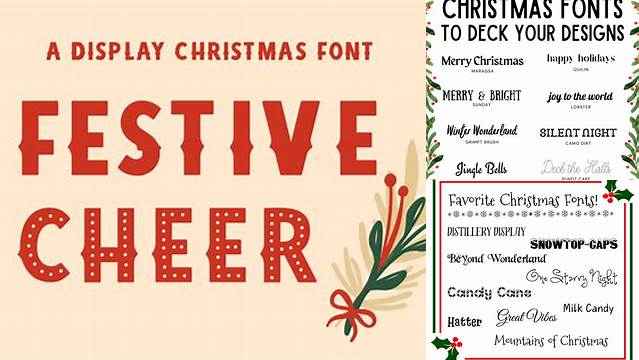
Let's get this holiday party started, fonts-style! Are you ready to sprinkle some Christmas magic on your messages, social media posts, or festive designs? You've come to the right place! This guide is your ultimate cheat sheet for all things Christmas fonts, making it super easy to copy and paste your way to holiday cheer. Forget struggling with complicated design software – we're keeping it simple, fun, and totally festive. We'll dive deep into a sleigh-full of font styles, from elegant scripts that whisper of snowy evenings to playful fonts that shout "Santa's coming!". So, grab your cocoa, put on some carols, and let's transform your text into a winter wonderland. We're going to cover everything you need to know, from where to find these amazing fonts to how to use them to their full potential. Get ready to make your words sparkle and shine with the spirit of Christmas!
H2: What Are Christmas Fonts?
Christmas fonts, guys, are basically the secret ingredient to adding that extra oomph to anything holiday-related. They're not just your regular, run-of-the-mill letters; they're designed to evoke the warmth, joy, and magic of the Christmas season. Think about it – a simple message written in a playful, snow-dusted font instantly feels more festive, right? These fonts come in all sorts of styles, from elegant scripts that remind you of handwritten Christmas cards to bold, whimsical fonts that practically jingle bells. They often incorporate design elements like snowflakes, ornaments, or even little Santa hats perched on top of the letters. The key is to choose a font that matches the mood you're trying to create. A formal invitation might call for a sophisticated script, while a fun, casual social media post could rock a quirky, playful font. So, whether you're crafting invitations, designing holiday cards, or simply want to add a festive touch to your online presence, Christmas fonts are your go-to tool for spreading the holiday spirit. And the best part? With the ability to copy and paste these fonts, you don't need to be a design guru to make your text look amazing. It's all about bringing that festive flair to your fingertips!
H2: Why Use Special Fonts for Christmas?
Okay, so why bother with special Christmas fonts when you could just stick to your standard Arial or Times New Roman? Well, guys, it's all about creating an experience and tapping into those warm, fuzzy holiday feelings. Think of it like this: you wouldn't decorate your Christmas tree with plain, unadorned branches, would you? You'd deck it out with sparkly ornaments, twinkling lights, and maybe even a star on top, right? Special Christmas fonts do the same thing for your text – they add that extra layer of visual excitement and festive charm. Using these fonts can instantly transform a mundane message into something special and memorable. They help you communicate the spirit of the season in a way that ordinary fonts simply can't. Plus, let's be honest, they're just plain fun! Imagine receiving a Christmas card written in a font that looks like it was dusted with snow – it's way more exciting than reading the same message in a standard font. So, whether you're looking to add a touch of elegance, a sprinkle of whimsy, or a whole lot of festive cheer, using special Christmas fonts is a fantastic way to elevate your holiday communications. And with the copy and paste functionality, it's easier than ever to make your text sparkle with holiday magic. Get ready to spread some joy, one font at a time!
H2: Popular Styles of Christmas Fonts
Okay, let's talk styles, guys! When it comes to Christmas fonts, you've got a whole sleigh-load of options to choose from. It's like walking into a candy store, but instead of sweets, you're surrounded by beautiful, festive letters. From elegant scripts that whisper of snowy ballrooms to playful display fonts that shout